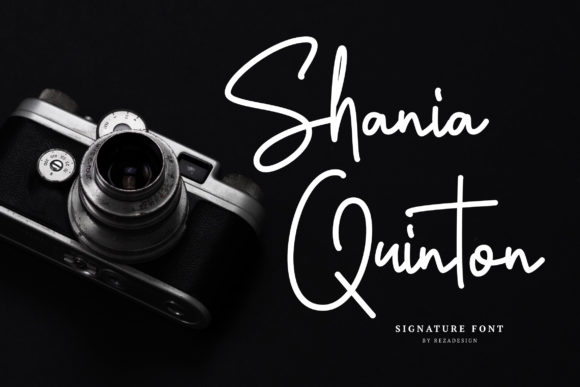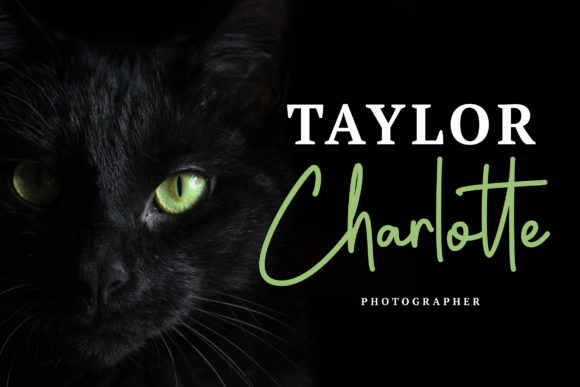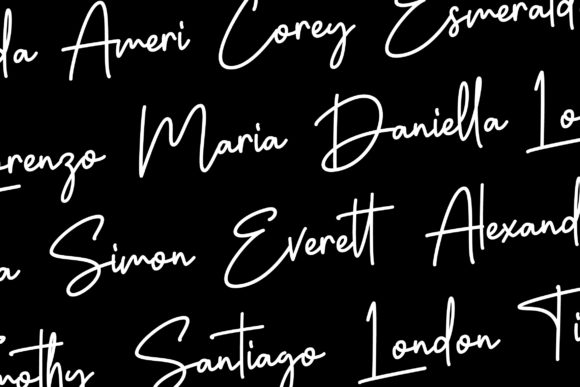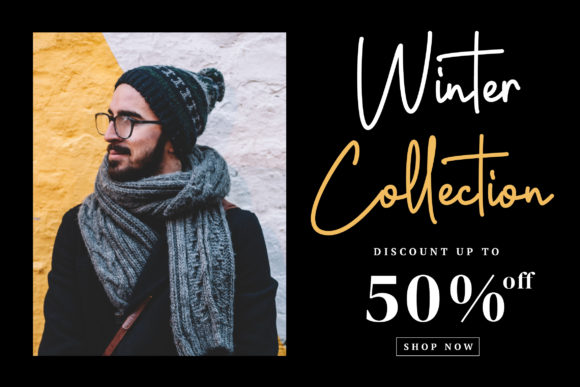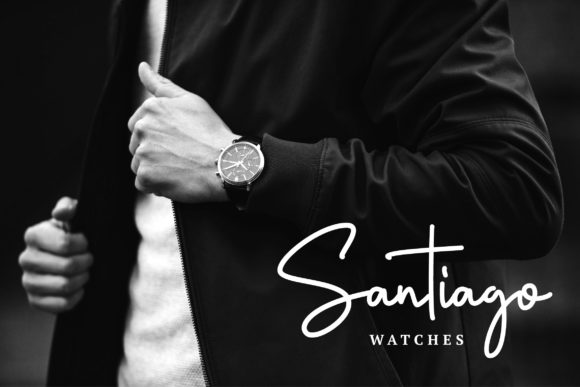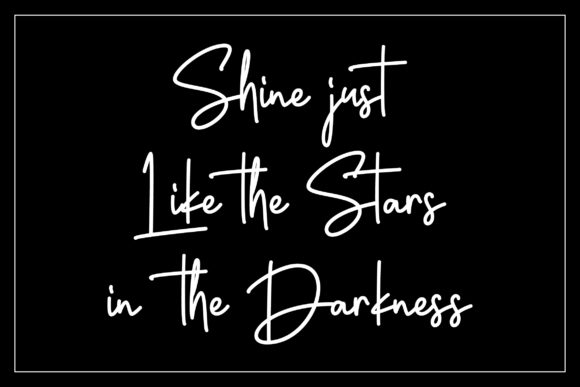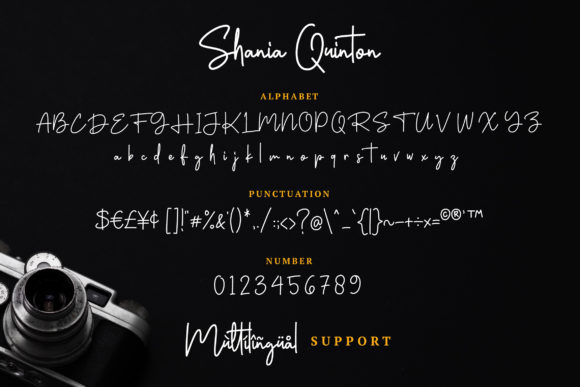
Shania Quinton Font
About Shania Quinton Font
Shania Quinton is a unique signature script font. It will elevate any logo for branding, typography design, product packaging, invitation, quotes, t-shirt design, label poster, sor any other creative idea that requires a handwritten feel.